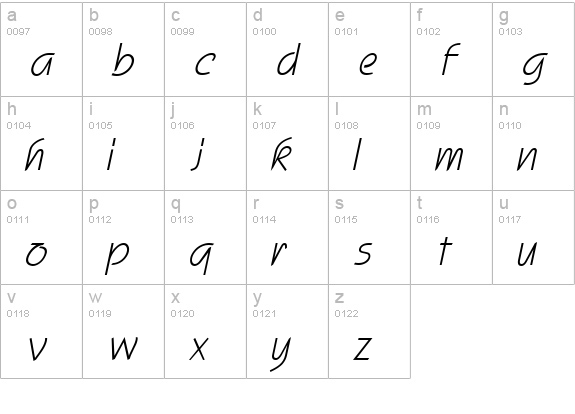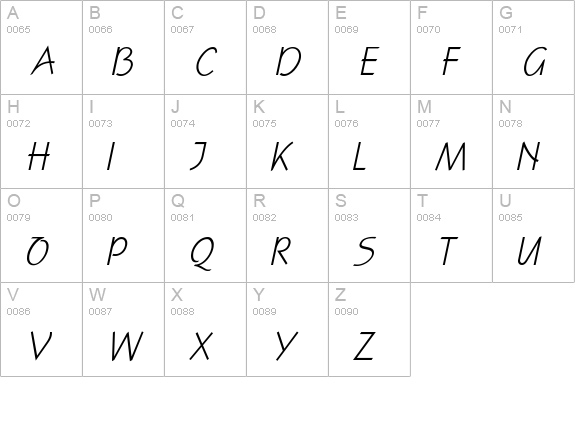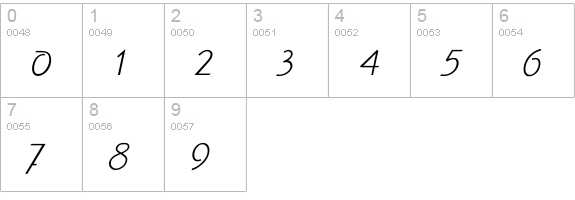
Scroll Italic is a distinctive, italic variant in the Scroll typeface family \xE2\x80\x94 well suited to design and typography projects.
Scroll Italic is a stunning font that beautifully captures the essence of elegance and sophistication. Its delicate and graceful curves create a sense of fluidity, making it the perfect choice for projects that require a touch of refinement. The italicized design adds a touch of dynamism, making every letter seem to dance across the page. With its timeless appeal, Scroll Italic is suitable for a wide range of applications, from invitations and wedding stationery to logo designs and branding materials. Its versatility allows it to effortlessly adapt to any project, ensuring that your creations stand out from the crowd. One of the best aspects of Scroll Italic is that it is completely free. Yes, that's right – this incredible font can be downloaded for free at FontsMarket.com. This means that you can enjoy all the beauty and elegance of Scroll Italic without having to spend a single penny. Whether you're a professional designer or a hobbyist, this font offers you the opportunity to elevate your projects without breaking the bank. So why wait? Take advantage of this amazing offer and download Scroll Italic today. Let your creativity soar as you explore the endless possibilities this font brings to your designs. Whether you're creating a stunning wedding invitation or designing a captivating logo, Scroll Italic is sure to leave a lasting impression. Download it now at FontsMarket.com and watch your projects come to life with the timeless elegance of Scroll Italic.